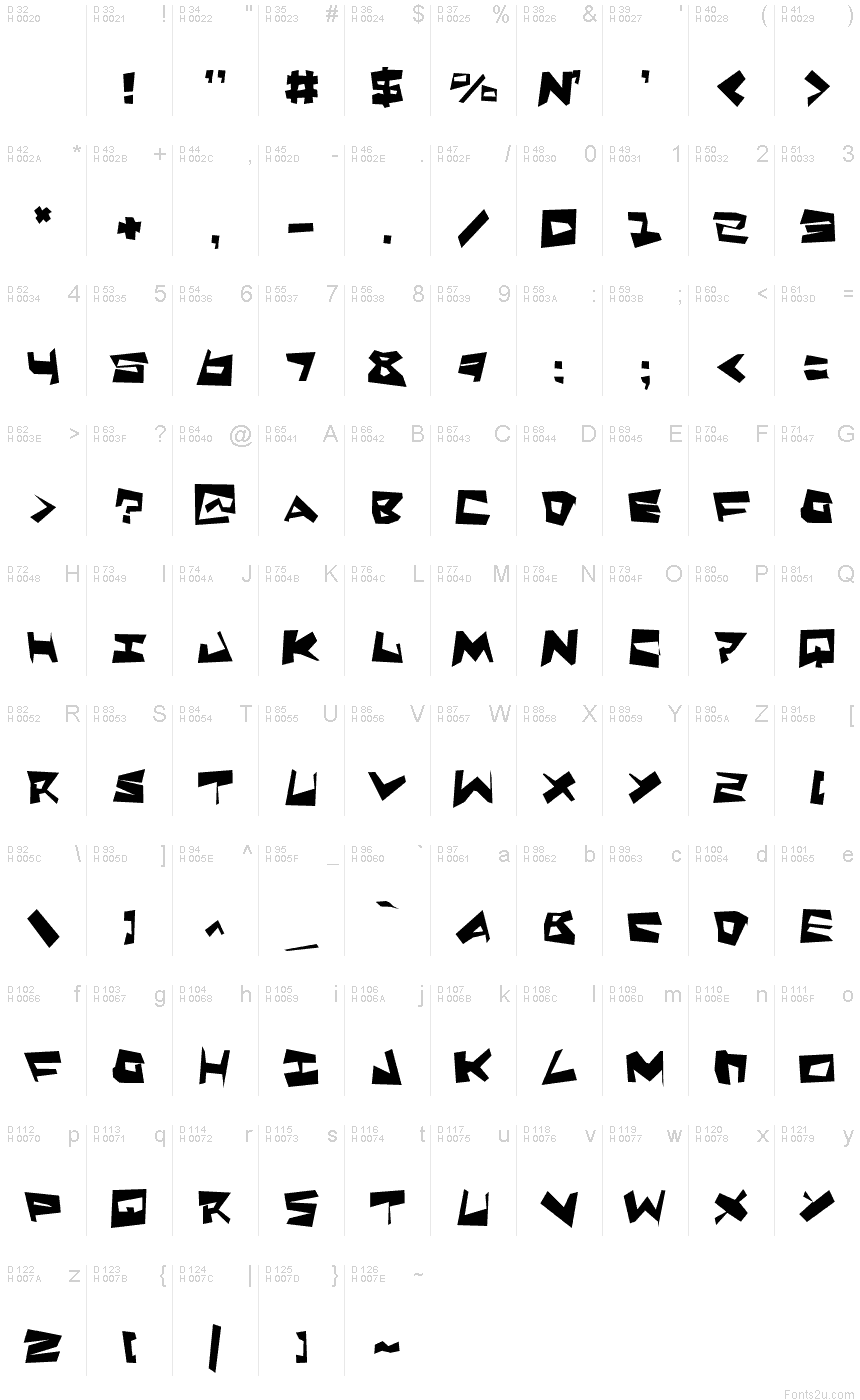
Quake & Shake SuperMax
Quake and Shake SuperMax, a free comic caps font from 2002 by Iconian Fonts, pushes a rough-cut cartoon attitude with letters that look kicked sideways and carved into chunky black shapes. The caps lean, lurch, and snap at odd angles, with hard corners and uneven silhouettes that give the whole alphabet a noisy, seismic bounce.
It fits poster headlines, arcade-style logos, skate or action zines, kids' event graphics, and title cards where a free font needs motion before color or effects do any work. Use it for short blasts of text, cover lines, or monograms, because those jagged caps carry the idea best when the words stay brief.